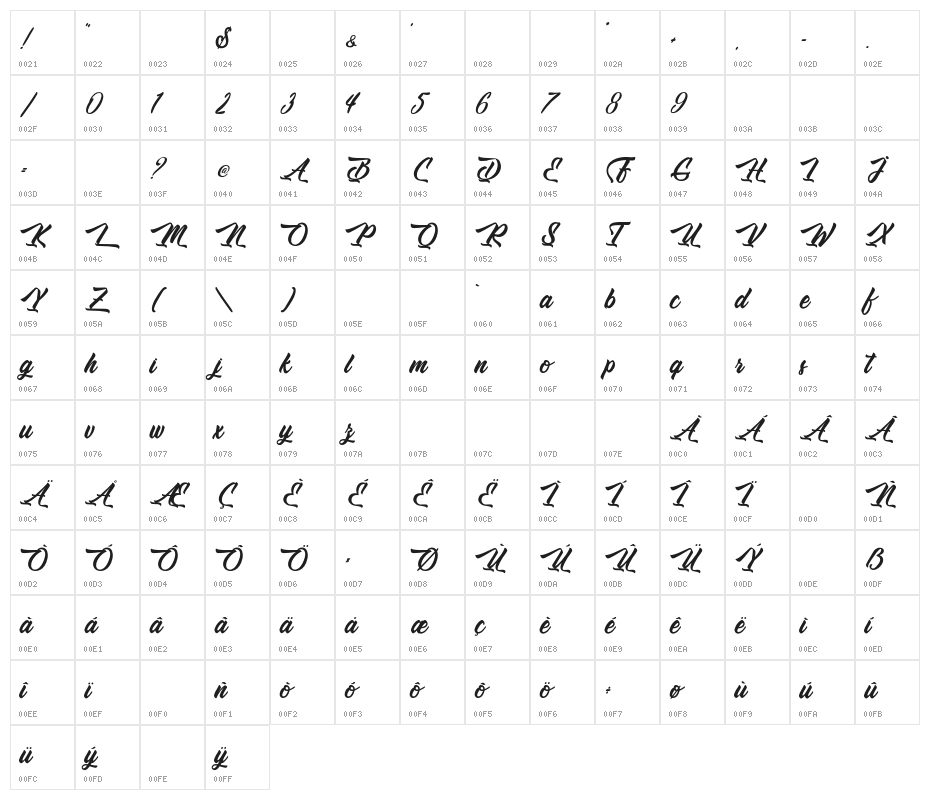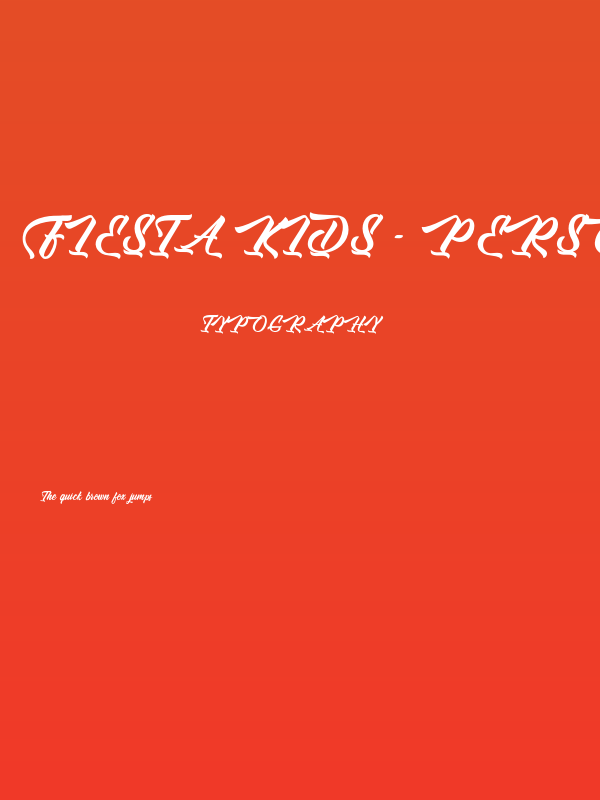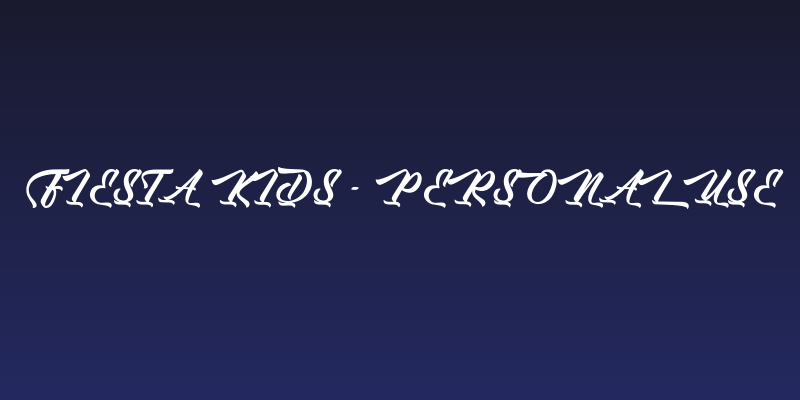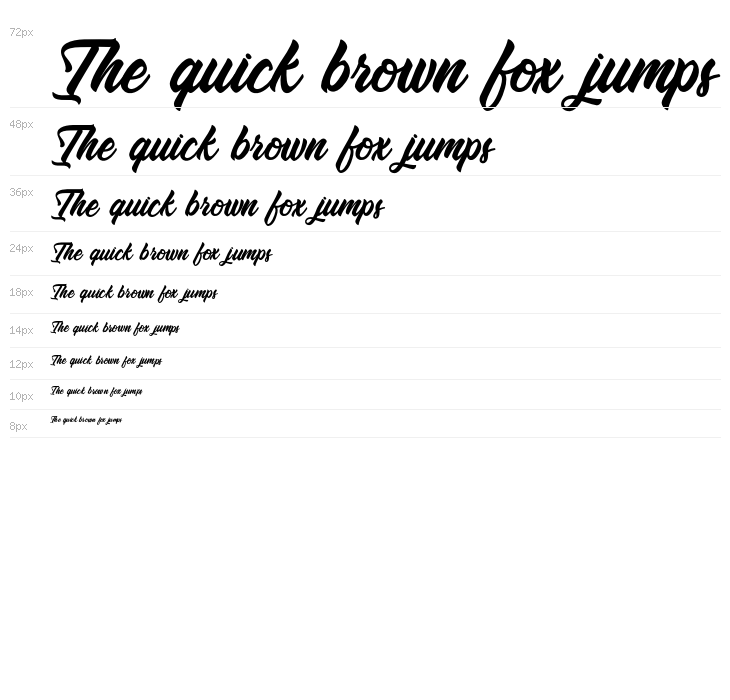
Fiesta Kids - Personal Use Font
Fiesta Kids - Personal Use Description
This font features a playful and energetic script style, characterized by its flowing, cursive letterforms. The uppercase letters exhibit a dynamic slant with exaggerated loops and swashes, giving a sense of movement and flair. The lowercase letters maintain a consistent rhythm, with smooth connections between characters, enhancing readability while preserving the decorative nature. The numerals and special characters complement the overall style with similar curves and embellishments. This font's lively and whimsical appearance makes it suitable for projects that require a touch of fun and creativity.
| Proposed Projects | Ideal for children's book covers, playful branding, party invitations, and greeting cards. |